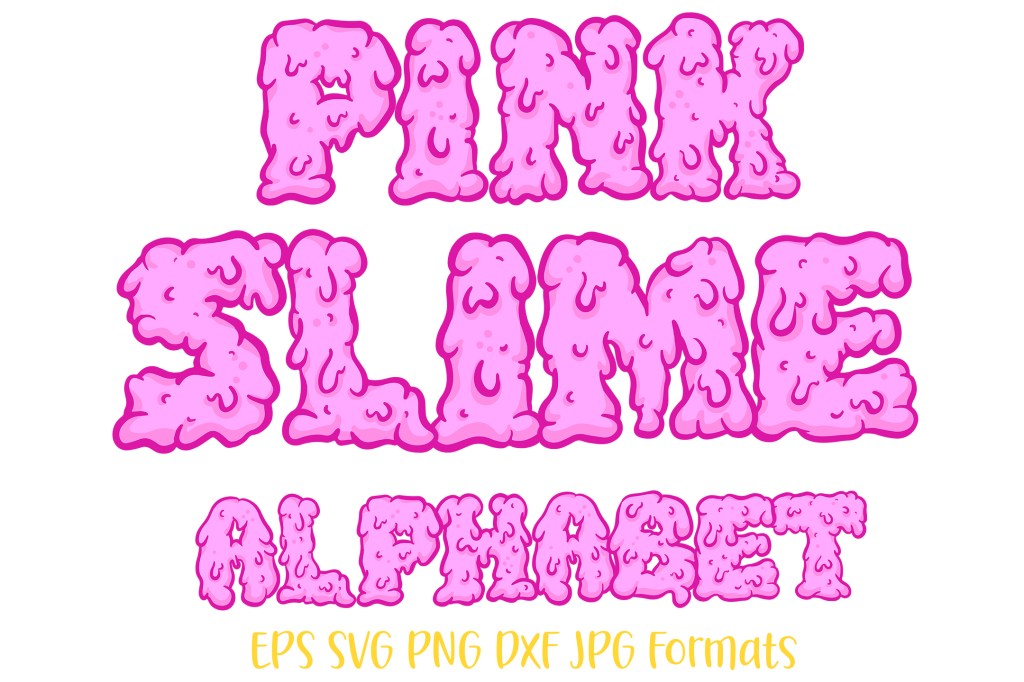
I must admit, this font for me has been almost the funniest one I have drawn… But not quite as gross as the poop one. I have the slime lettering available in snot green, putrid pink and runny blue. Available at Design Bundles and Creative Fabrica! Links below